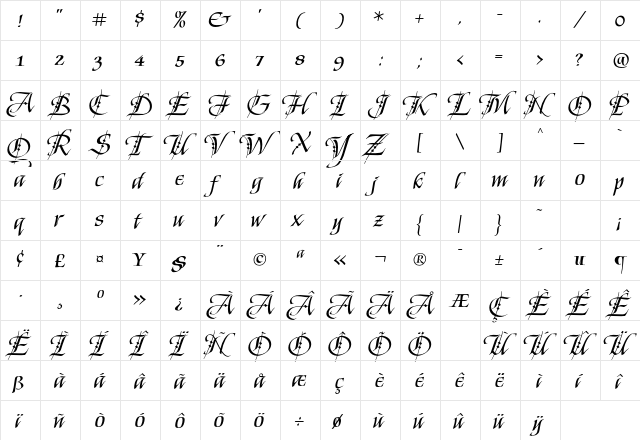
KingsQuest Regular
Design Context for KingsQuest Typeface
KingsQuest is a composed and adaptable typeface that performs quietly and consistently across a wide range of design contexts.